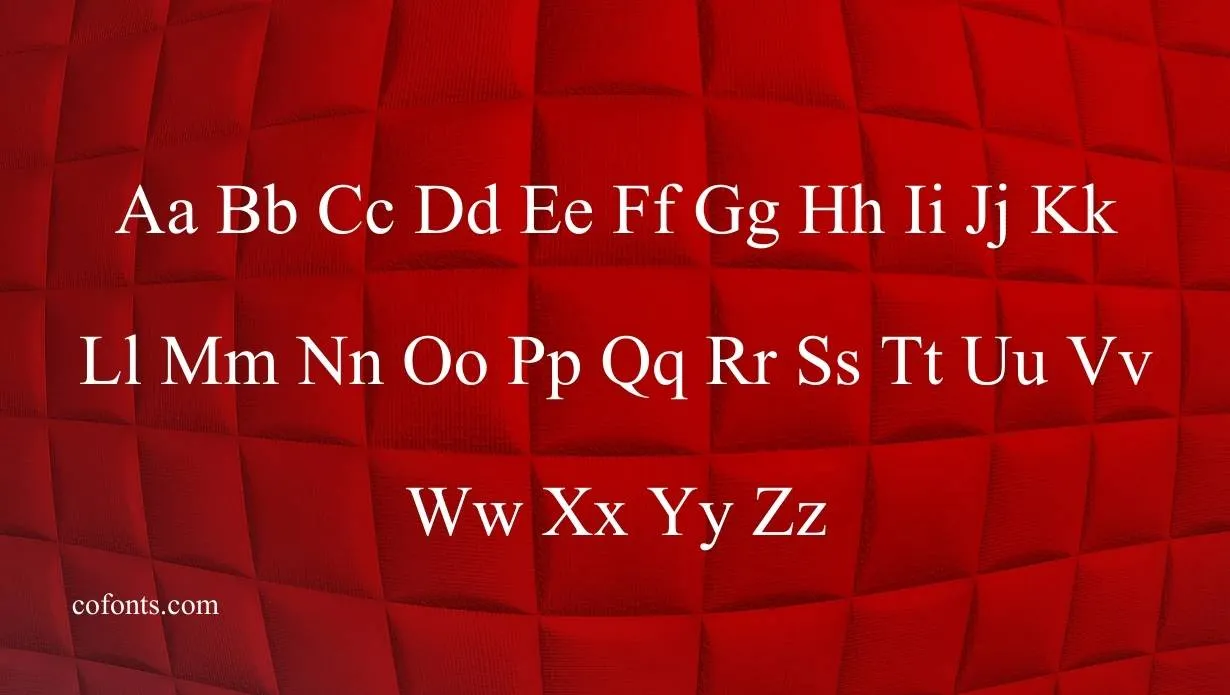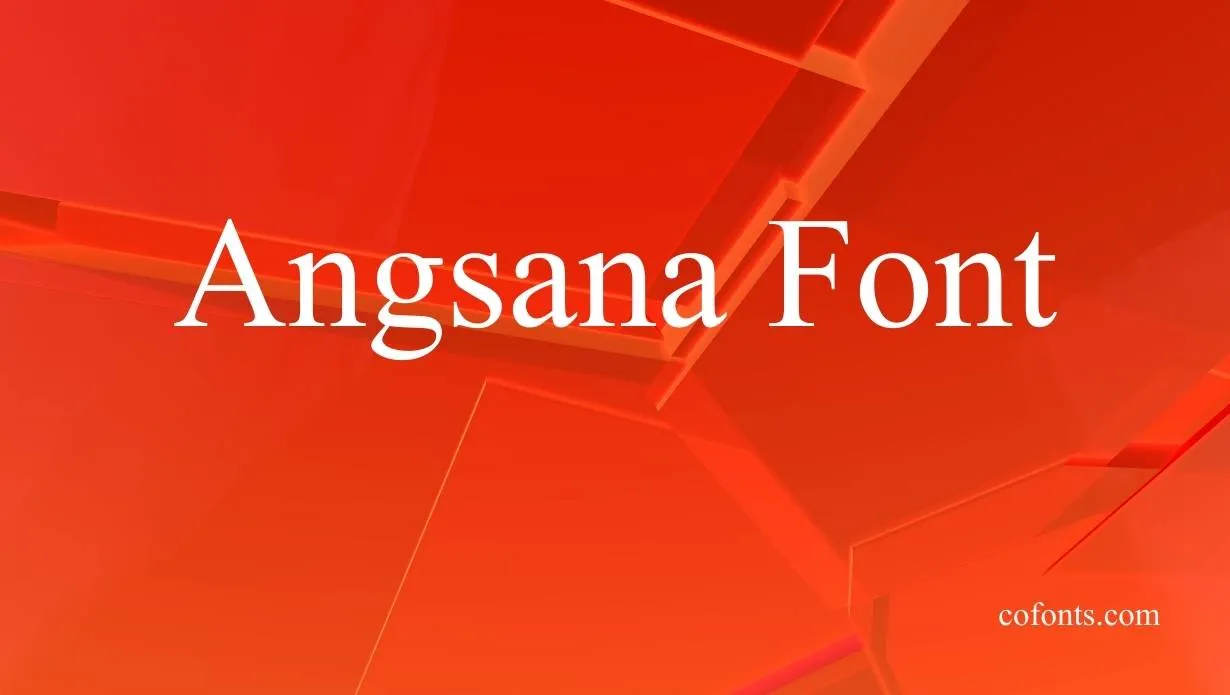
Design Of Angsana New Font
While many recollect it to be the vital British form variety, the Angsana new font typeface own loved ones. That has been used actually each nation – and for each application viable.
The cause for more than a few’ near-ubiquity is due to the fact it’s miles an awfully distinct design with a capacity range of use this is close to never-ending. Eric Gill, the person in control of designing gill sans. Was a bendy and super advantage in the early part of the last century.
He becomes lively, prolific and successful in tons of disciplines from trees engraving to sculpture and calligraphy. Throughout the 1920s, he started out an association with monotype and, in 1928, his first typeface, Sans-serif font, modified into liberating. This turns into accompanied through the perpetual and Joanna designs.
After first reviving countless classical form patterns to operate the thought of the new typeface font library, Morison concept that a truly state-of-the-art-day face (designed through a living artist) ought to be released. He moreover notion that eric gill grew to be qualified for the approach.